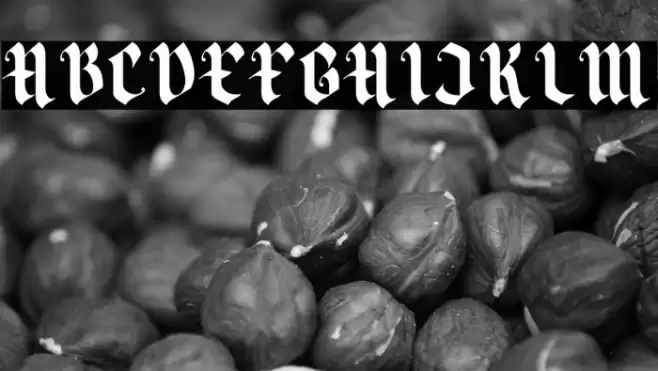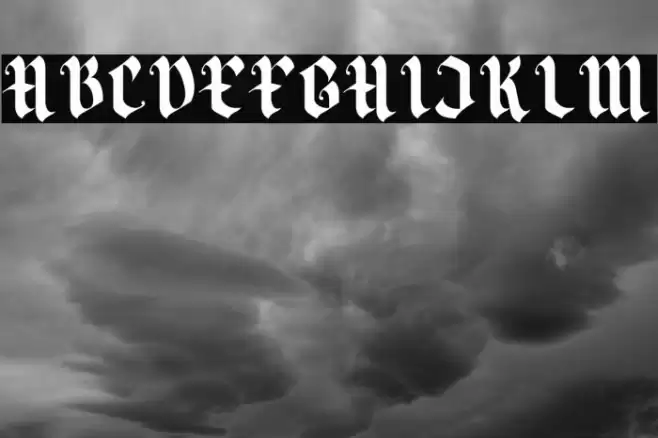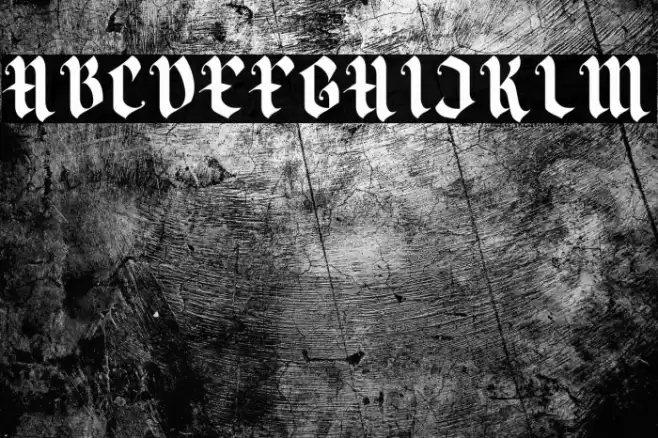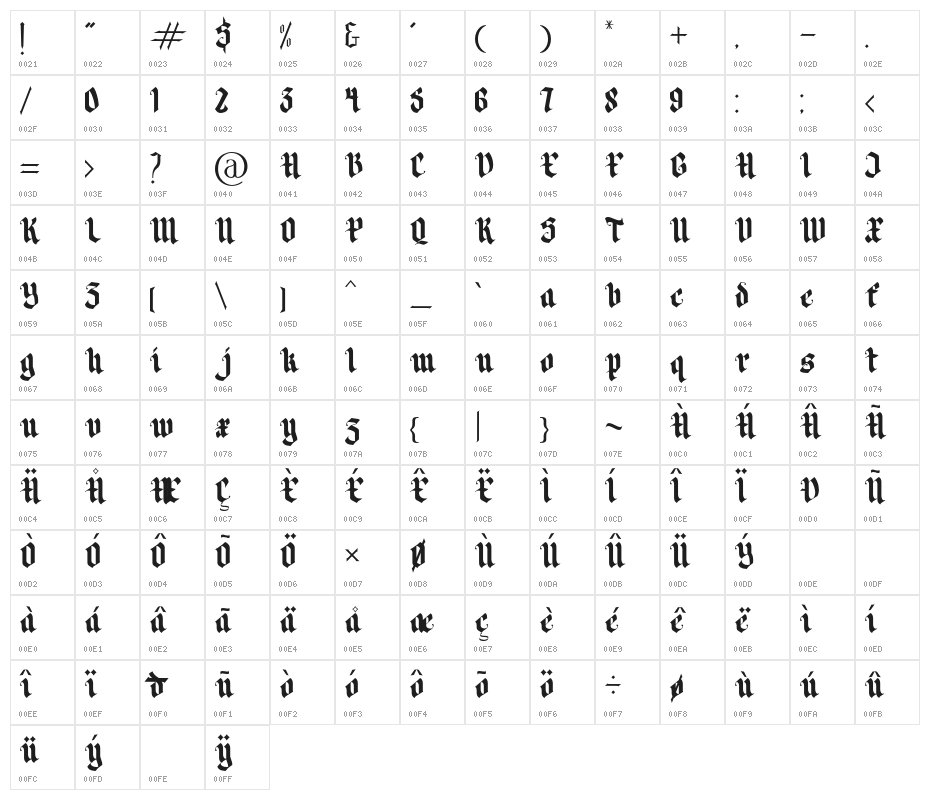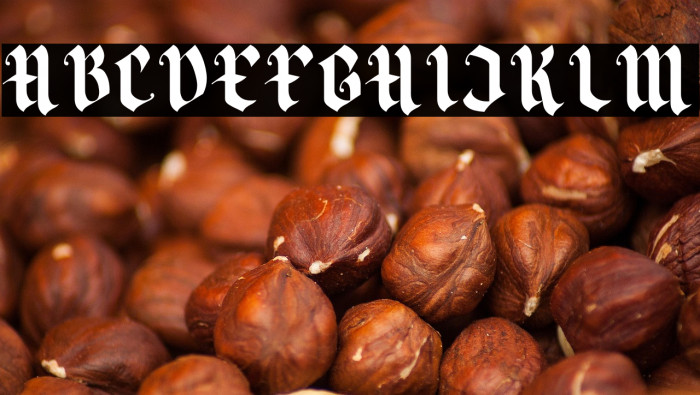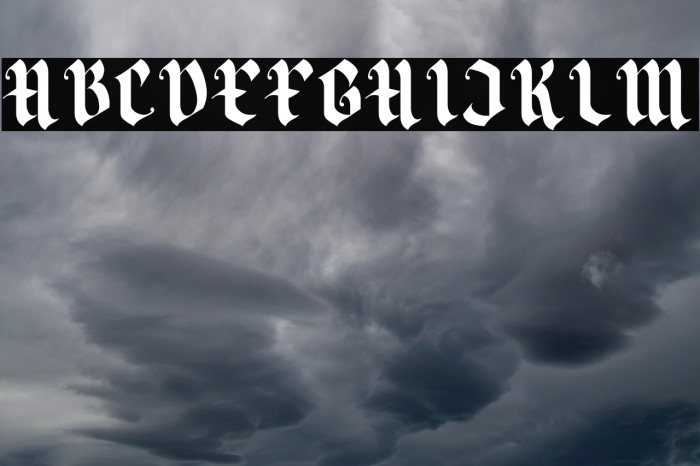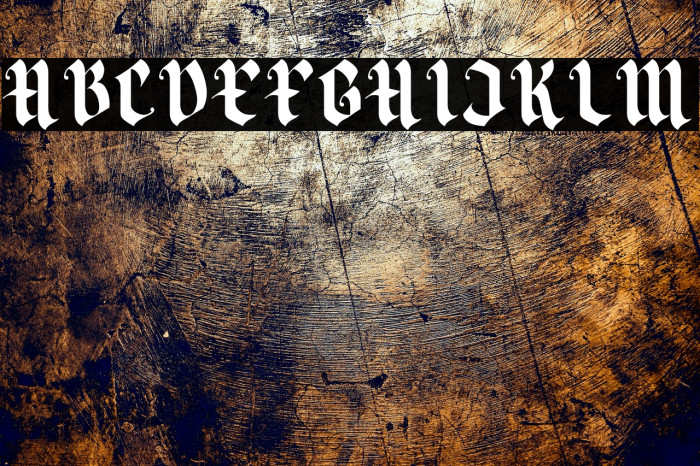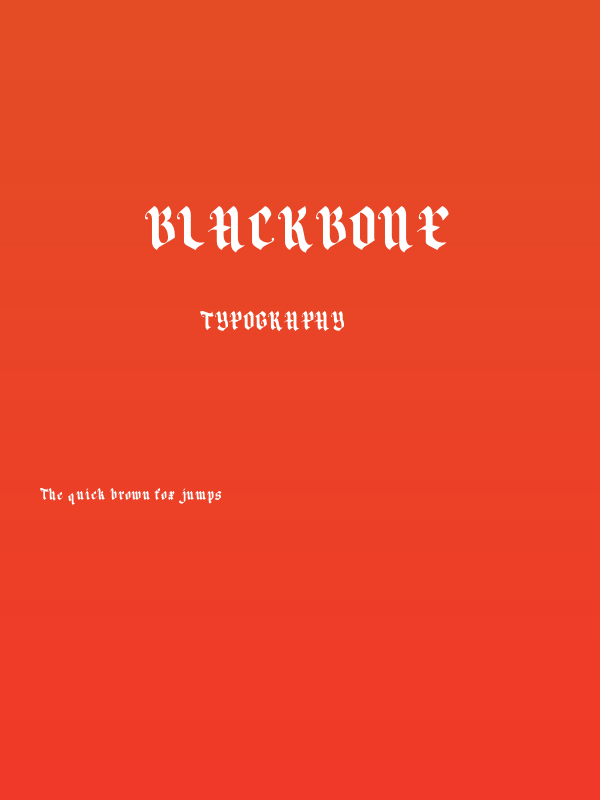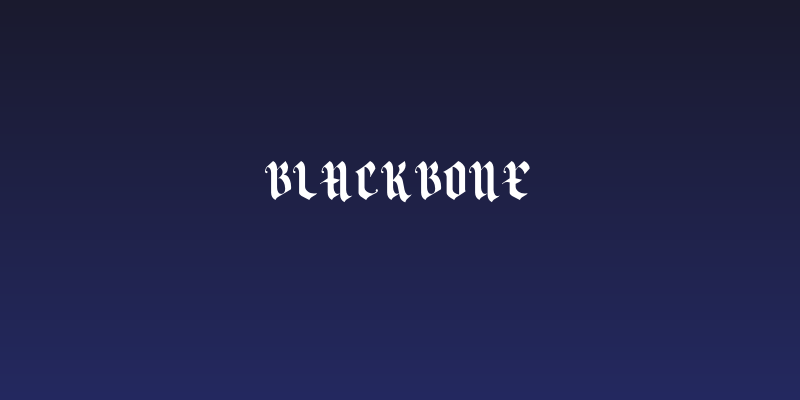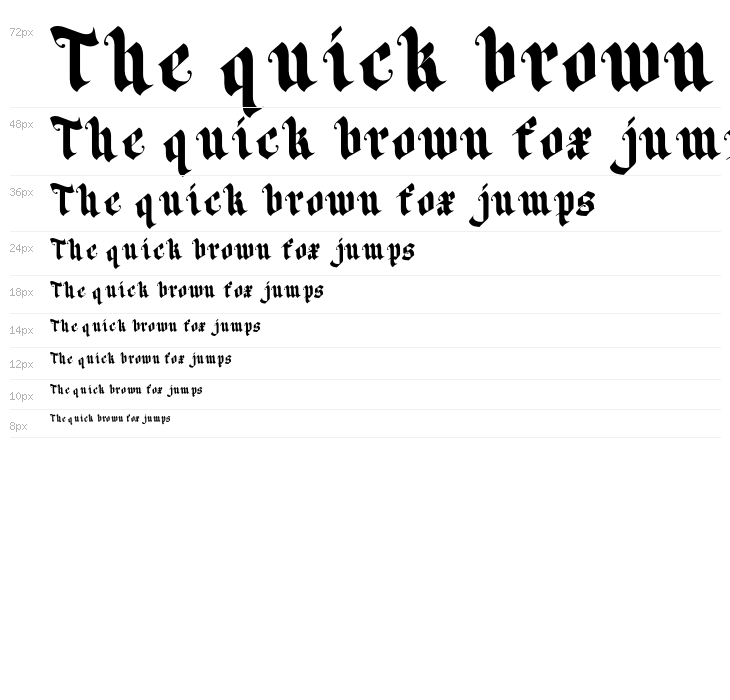
Blackbone Font
Blackbone Description
This font features a bold and dramatic blackletter style, characterized by its sharp, angular lines and intricate details. The uppercase letters exhibit a strong presence with their tall, narrow forms, while the lowercase letters maintain a consistent style, offering a cohesive look. The numerals and special characters are designed to match the overall aesthetic, providing a unified appearance across all characters. The font's high contrast in stroke thickness adds to its striking visual impact, making it suitable for projects that require a historical or gothic touch.
A bold blackletter font with sharp, angular lines and high contrast from Uncategorized fonts.
- Proposed Projects: Ideal for use in branding, posters, book covers, and any design requiring a gothic or medieval theme.
- Overall Style: Vintage
- Use Case: Logos, Headlines, Decorative text